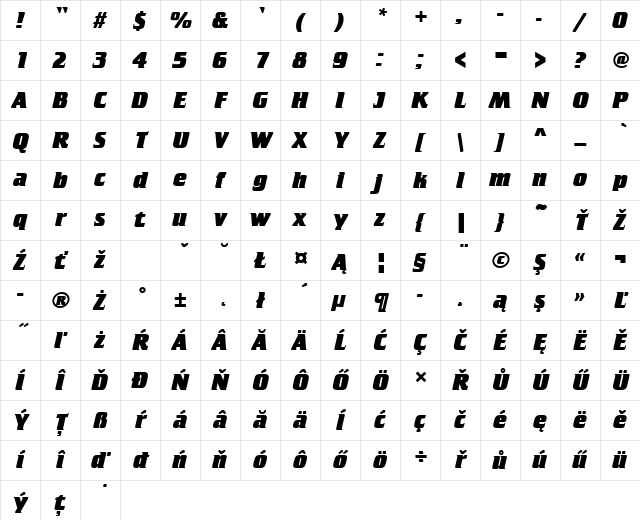
CrilleeTEEExtBol Regular
Design Context for CrilleeTEEExtBol
CrilleeTEEExtBol is a composed and adaptable typeface that performs quietly and consistently across a wide range of design contexts.